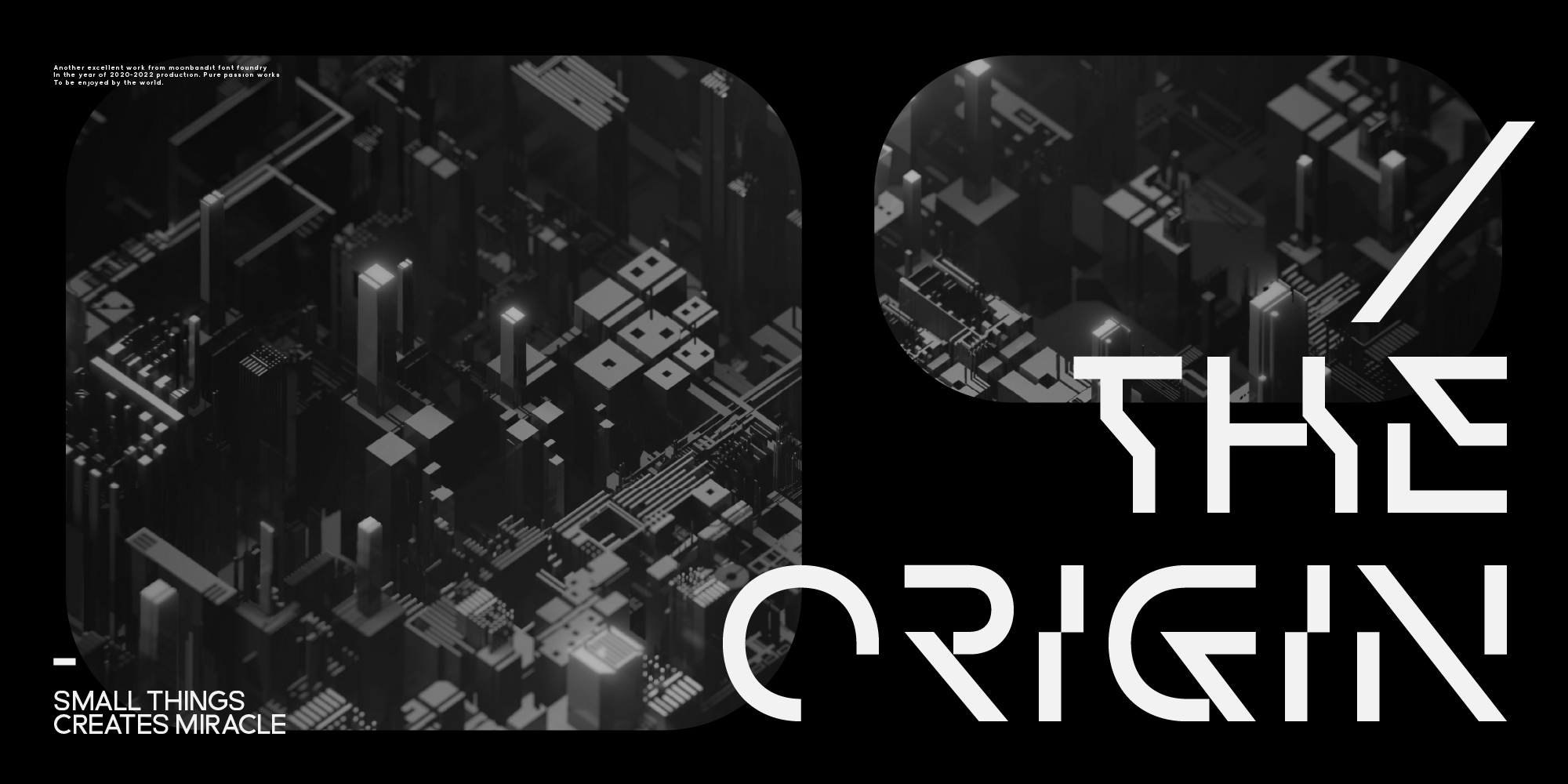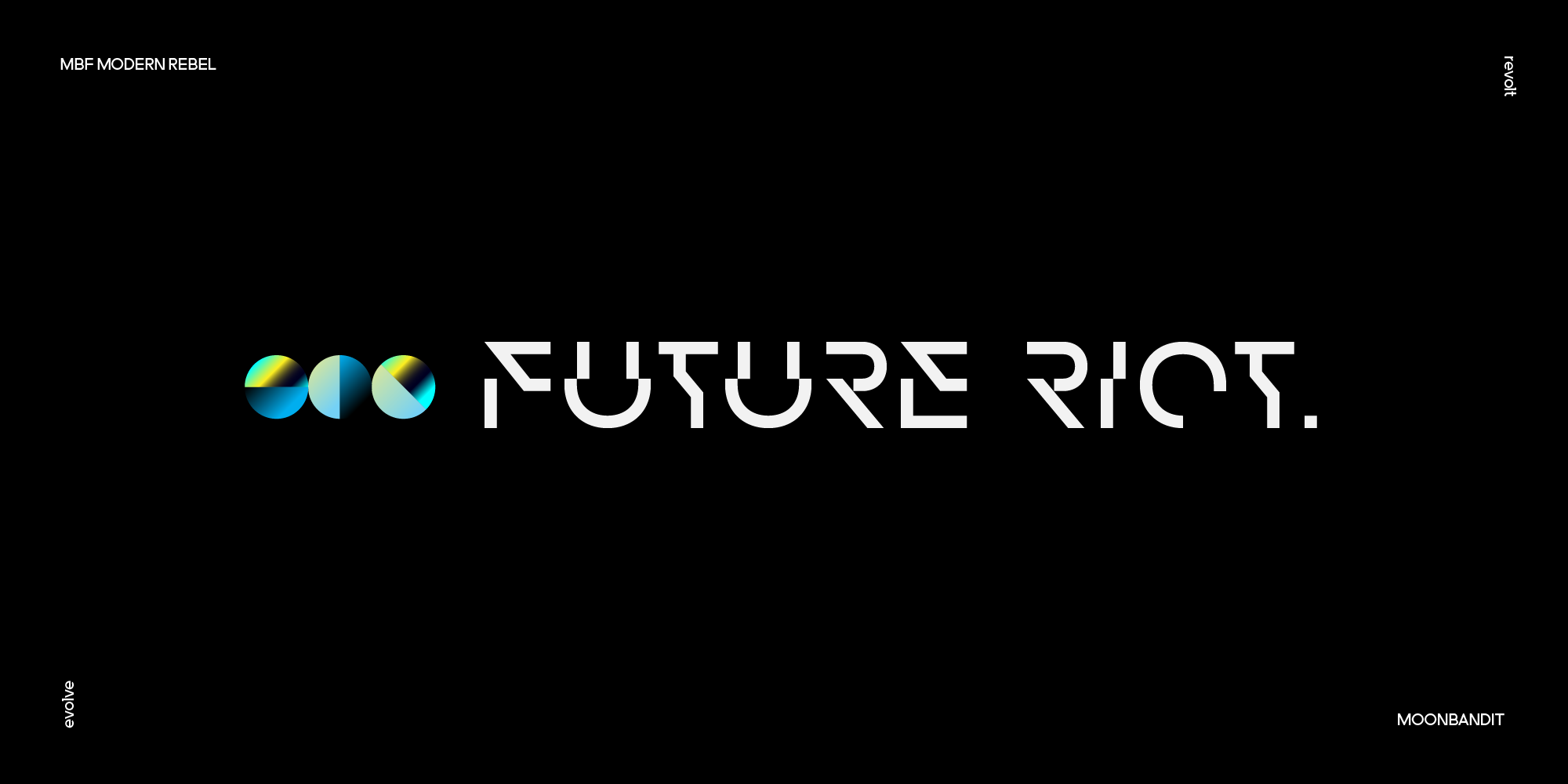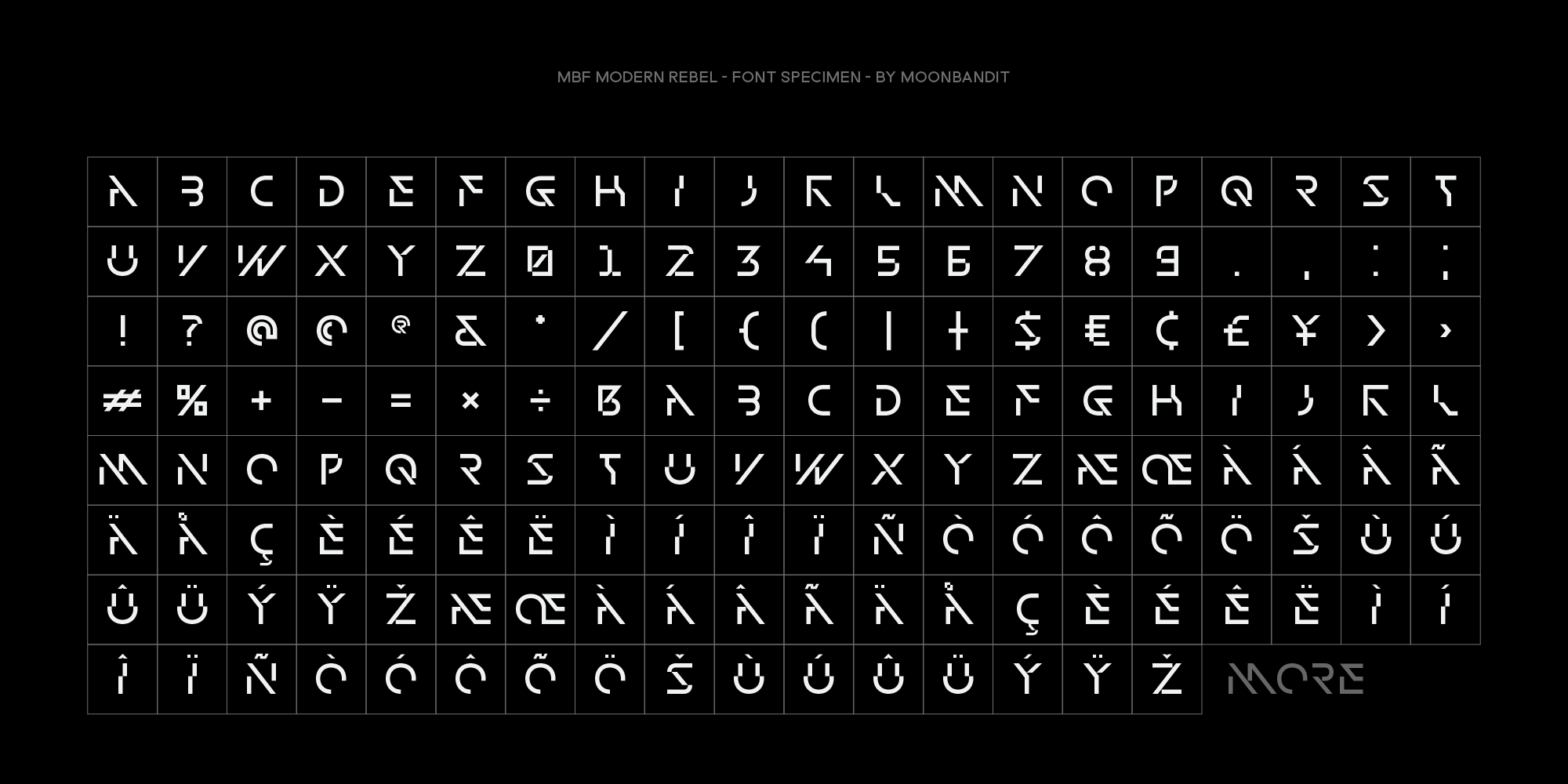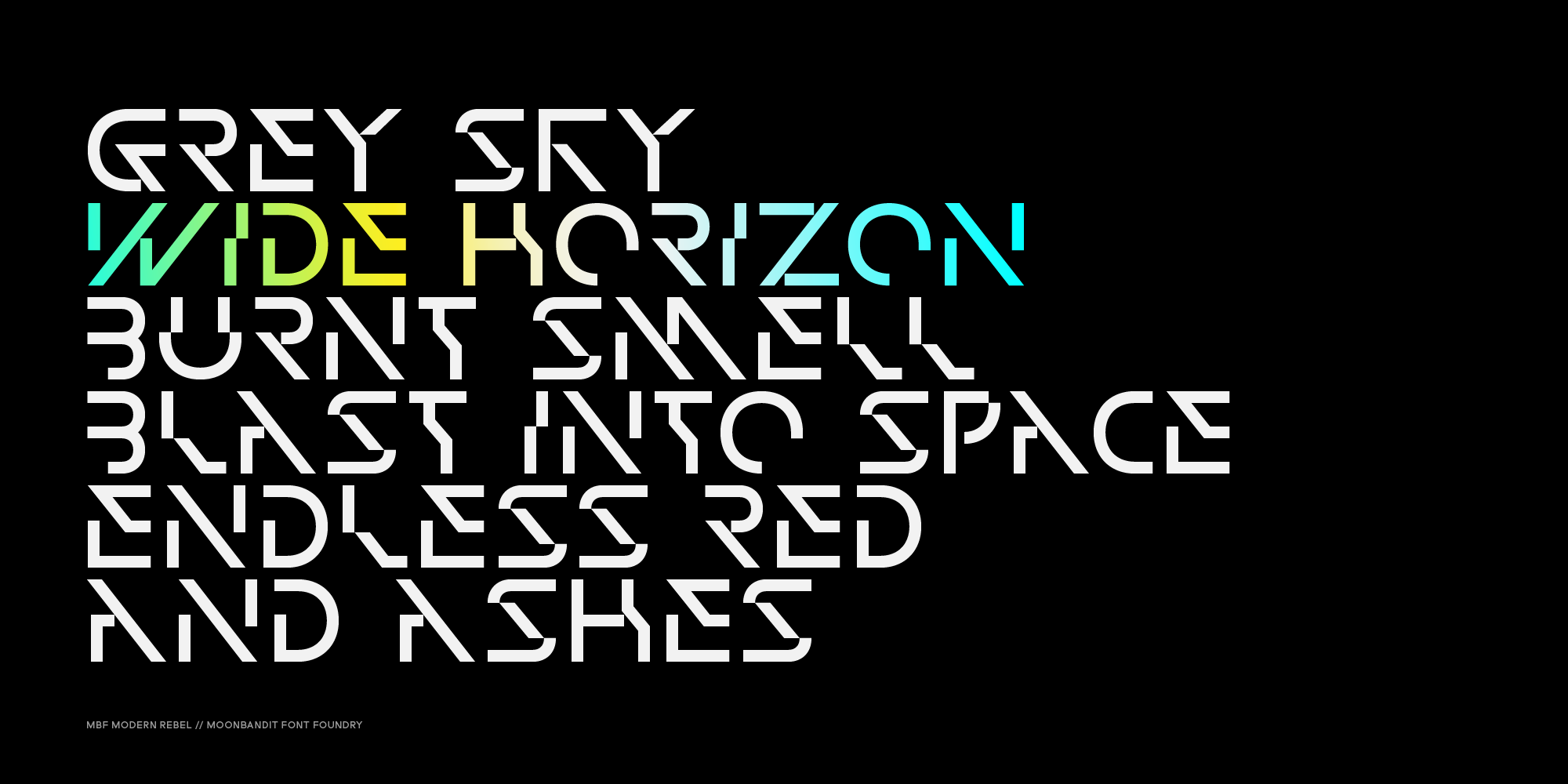
MBF Modern Rebel
modern rebel, modern futuristic display font with cyberpunk era inspiration. Unique diagonal ornament in the typeface design maximize the effect. Best usage as a title, large size display, logotype, wordmark and many others. Modern rebel also supports multi language.